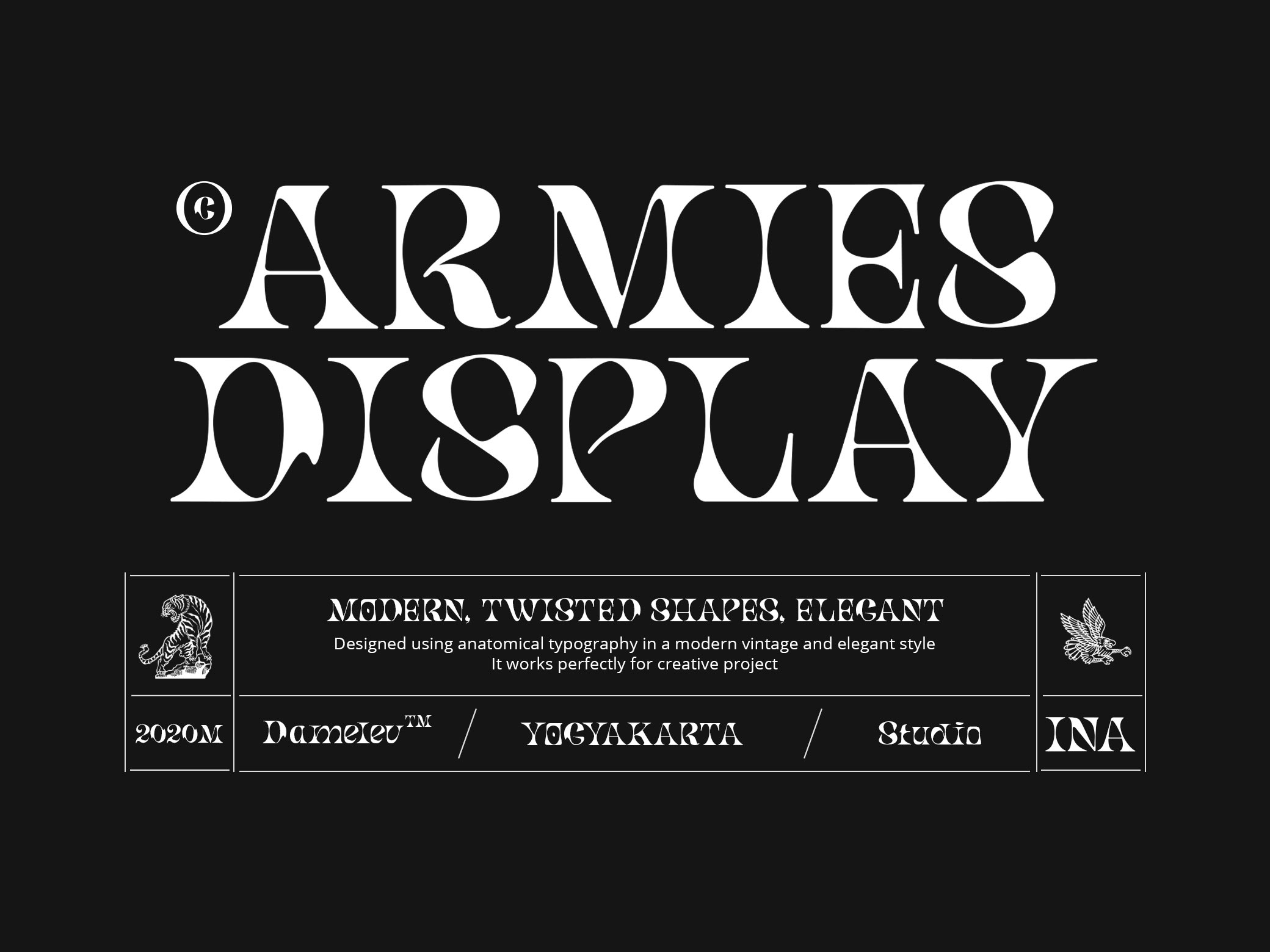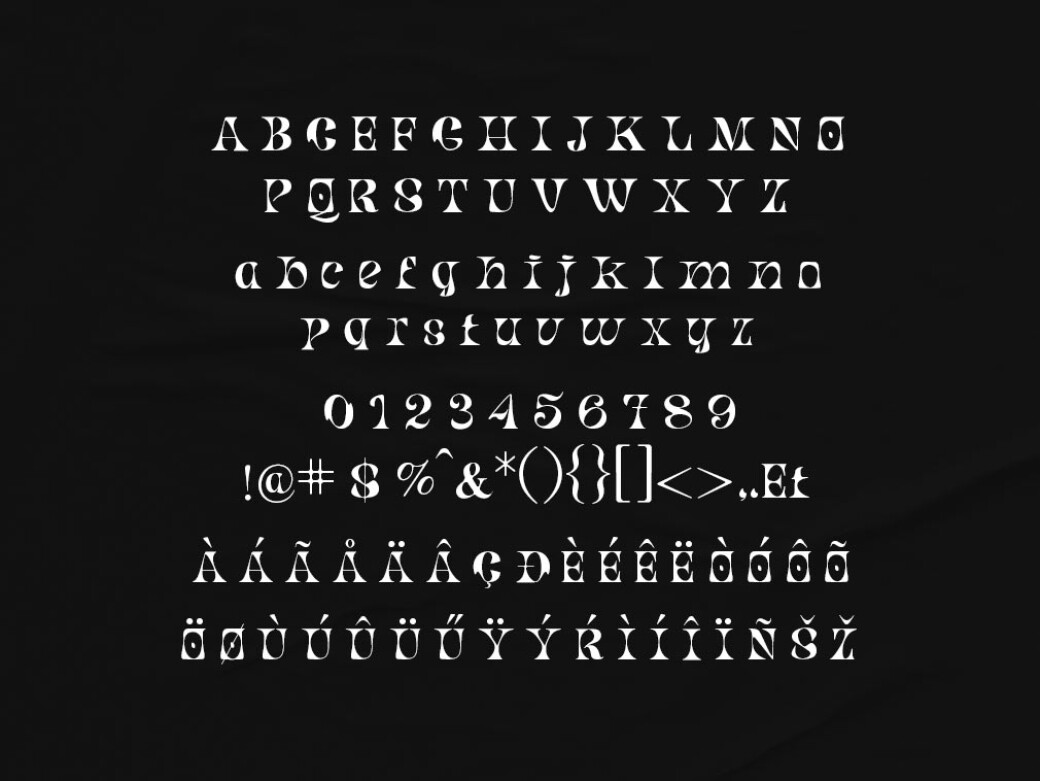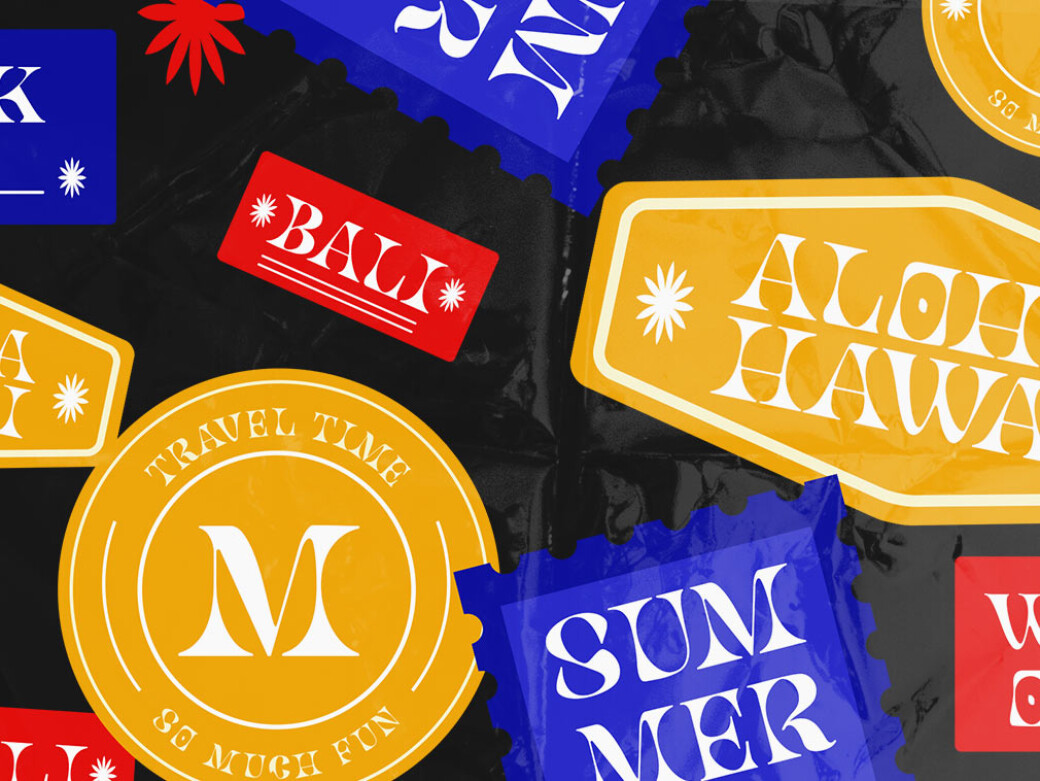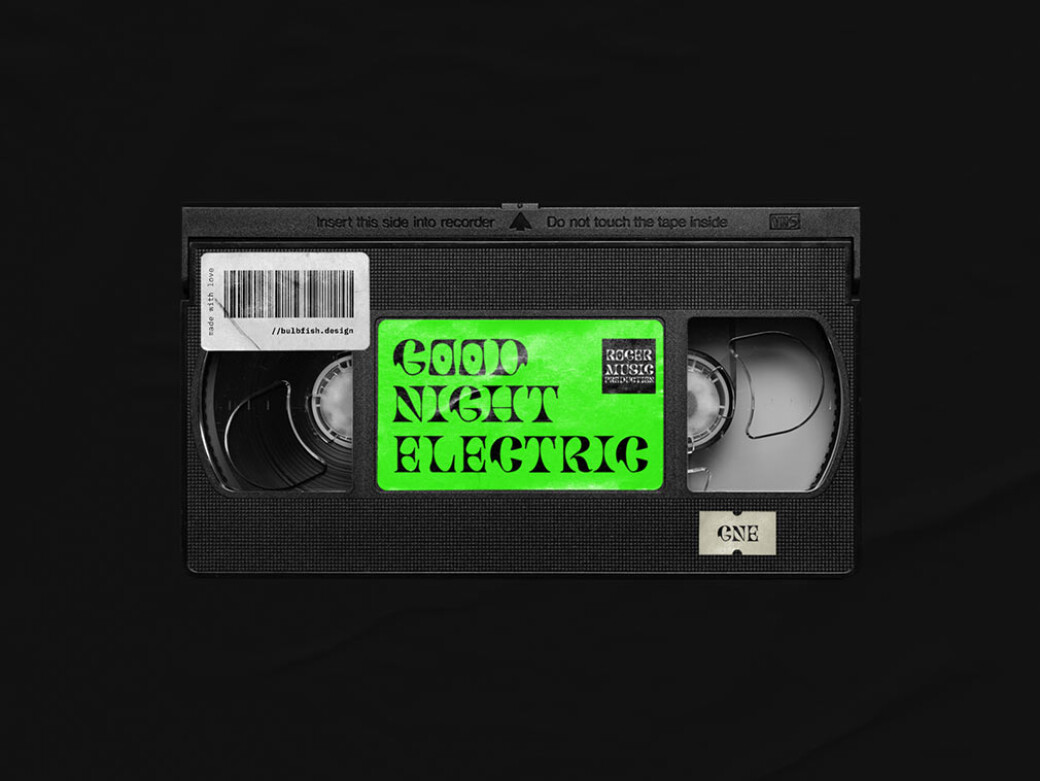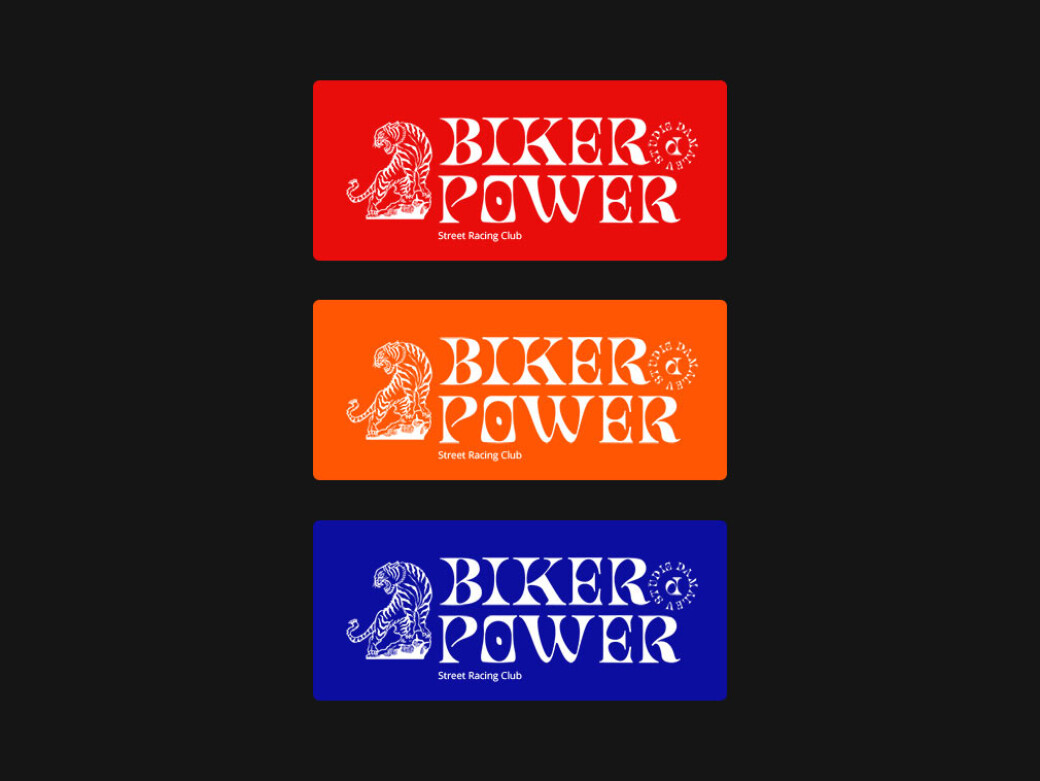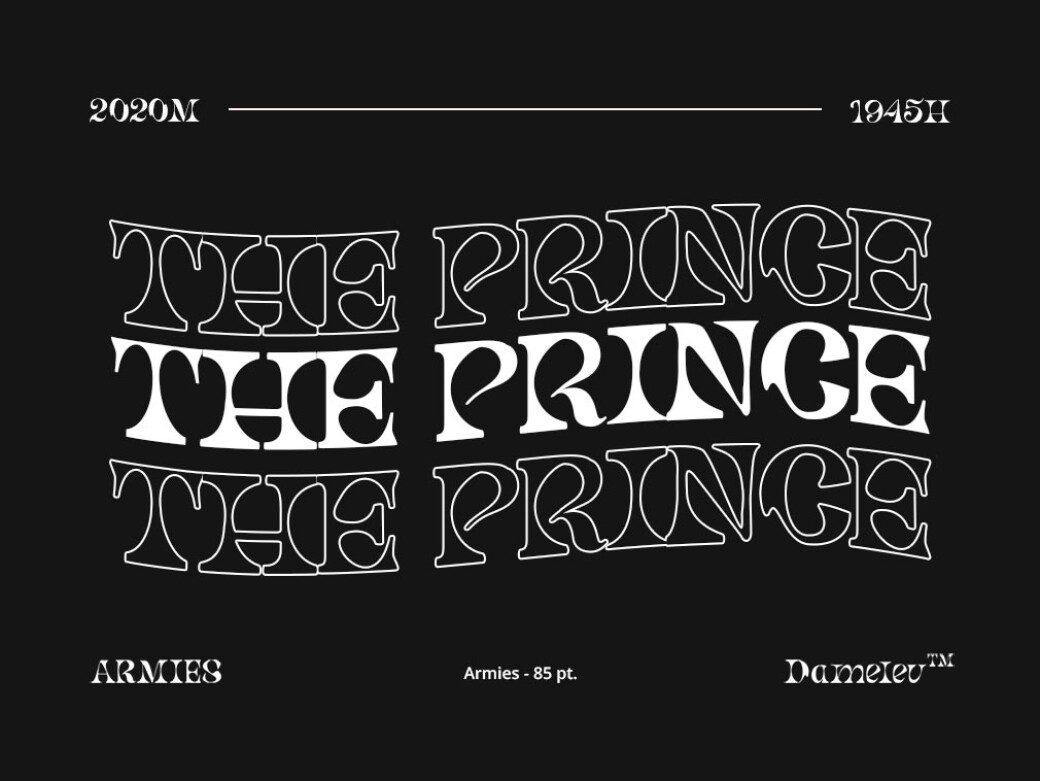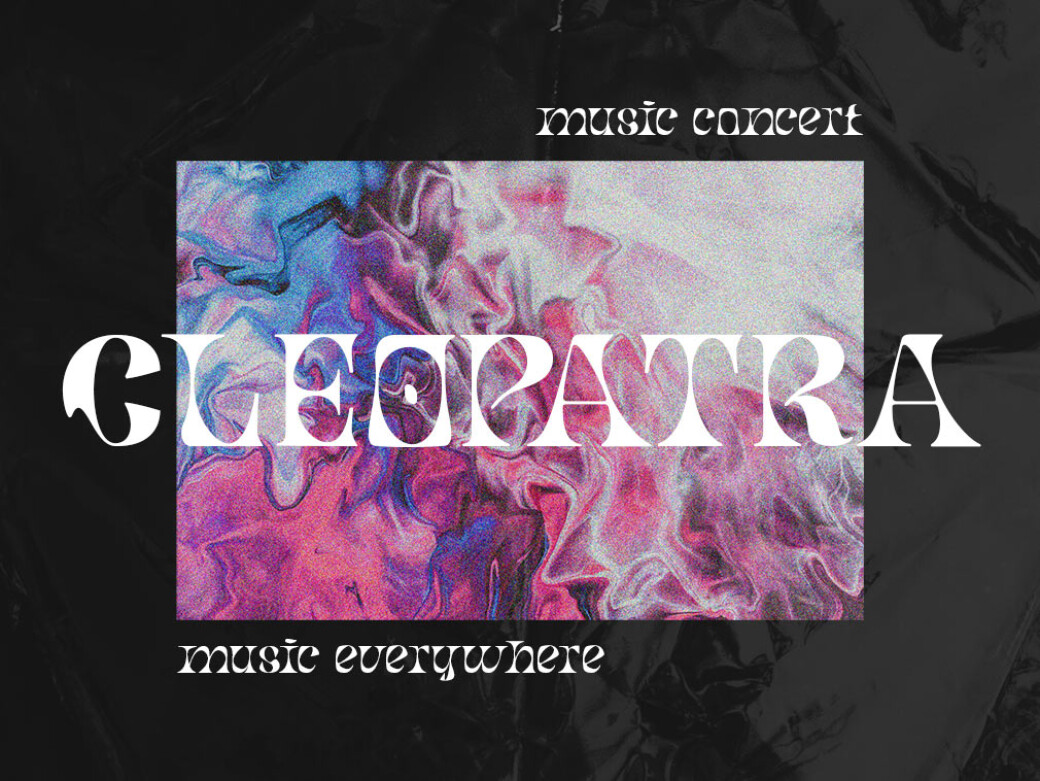
Armies Display Font
Grew bored of conservative typefaces and your heart craves for something truly brave and extraordinary? So happens that we have a suitable display font for you: not tacky and pretty remarkable.Armies display font belongs to the "twisted shape" category because it is so bold and massive. It also has a high contrast design and very extended, wide characters. Even though it is legible in medium sizes, it will shine most when used with large characters where its restraint and passion can be seen. It works perfectly for creative projects like logotypes, T-shirt/apparel designs, badges, invitations, packaging, headlines, posters, magazines, greeting cards, and invitations. You can access the OpenType features and multilingual support, coming in the font package.